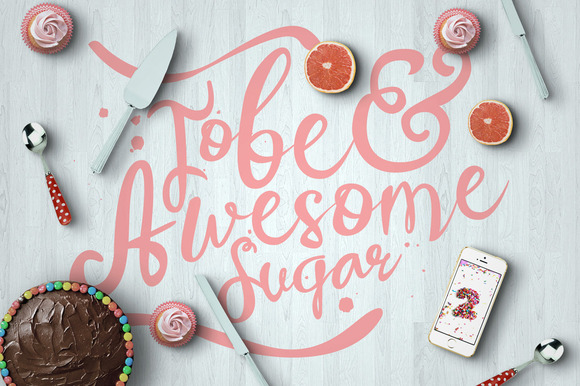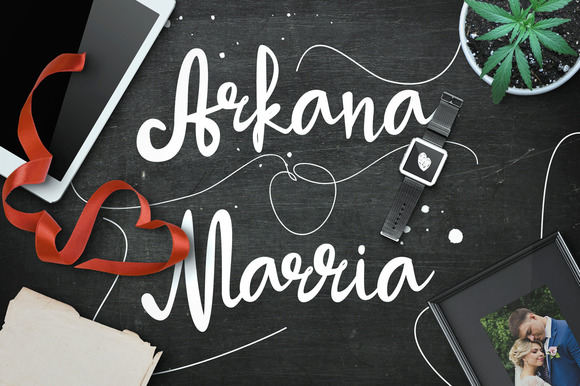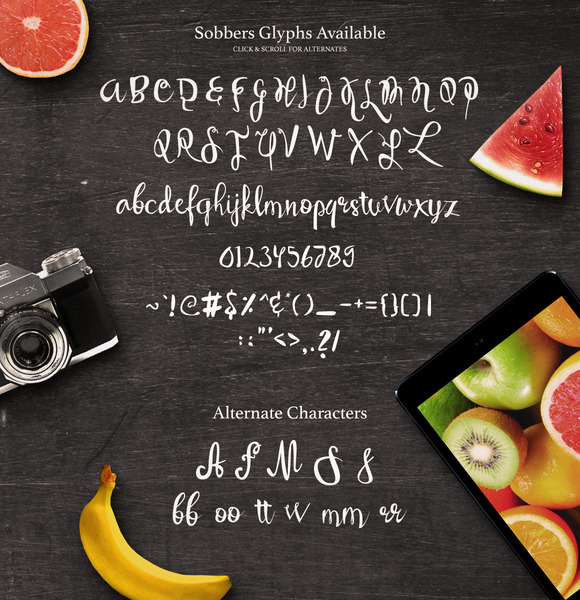
HomeScript FontsSobbers Typeface Font Script Fonts Sobbers Typeface Font FacebookXPinterestWhatsApp Sobbers Typeface Font Poster 2 Sobbers Typeface Font Poster 3 Sobbers Typeface Font Poster 4 About Sobbers Typeface Font Sobbers is a smooth vintage looking fonts that will give your designs a true handcrafted personal feeling. DOWNLOAD NOW People also explored Mary Geoise Font Milk Tea Font Summer Break Font Quartila Font Obliterate Markisa Sugar Font Simple Life Font Botanical Scribe I Miss You Font 335 0 TagsSobbers Typeface Font Previous articleTycho FontNext articleMorracle Font LEAVE A REPLY Cancel reply Comment: Please enter your comment! Name:* Please enter your name here Email:* You have entered an incorrect email address! Please enter your email address here Website: Save my name, email, and website in this browser for the next time I comment. Personal Use Free Expaing Personal Use Free Read more about this font Bigstone Personal Use Free Read more about this font Screengem Personal Use Free Read more about this font Dream Orphans Personal Use Free Read more about this font BLOG Best Fonts for YouTube Videos: Make Your Thumbnails Stand Out Best Fonts for YouTube Videos: Make Your Thumbnails Stand Out Choosing the right font can make a massive difference in how your YouTube videos perform.... Fonts That Capture the Spirit of New York City To increase your work productivity, choose the most readable fonts. Transform Your Website: Elevate Your Typography with 7 Best Web Font Generators